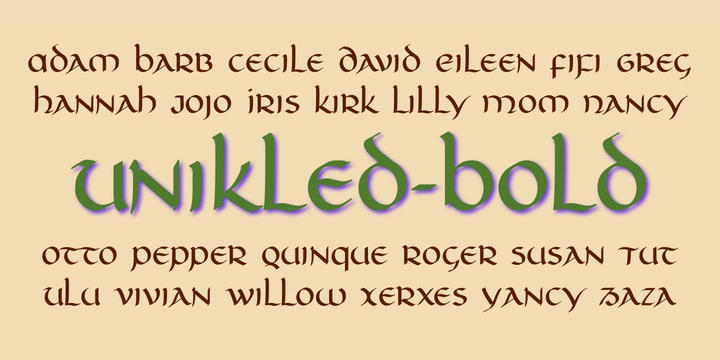
Unikled Font
Unikled Font is perfect for contemporary art gallery branding, modern design studio logos, innovative tech startup materials, creative agency presentations, architectural firm signage, avant-garde fashion labels, experimental music venue graphics, digital art exhibitions, progressive educational institutions, and cutting-edge product launches. This distinctive typeface excels in applications where creative innovation, artistic expression, and forward-thinking design are central brand characteristics.
What makes Unikled Font exciting is its unique structural approach that challenges traditional typography conventions through unconventional character construction and innovative letter relationships. The font features creatively reimagined letterforms with unexpected angles, distinctive proportions, and artistic flourishes that create immediate visual interest and memorable brand recognition. Its bold artistic personality makes it perfect for organizations that refuse to conform to conventional design standards and celebrate creative experimentation and innovative thinking.
The Unikled Font family typically includes Regular and Bold weights, often accompanied by experimental alternates with enhanced artistic characteristics and creative ligatures that showcase its unique design philosophy. Many versions feature stylistic variations that push typographic boundaries, decorative elements inspired by contemporary art movements, and special characters that reflect modern digital culture. Some collections include outline variations and creative effects that amplify the font's experimental nature for display applications.